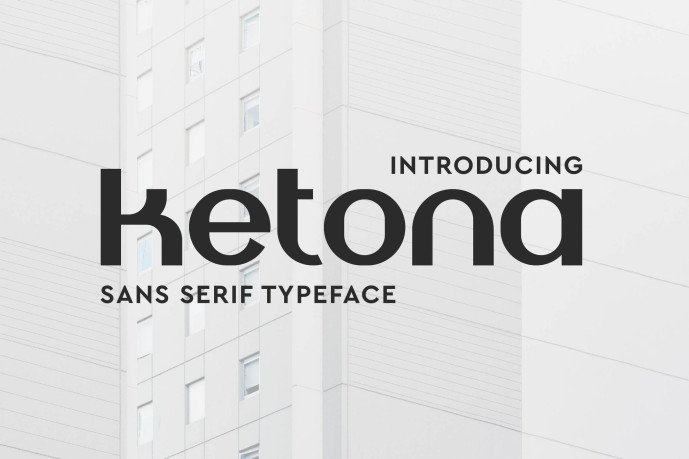
Ketona Font
Designer: Artiveko
Ketona Font – Modern Sans Serif Font. This font is perfect for posters, social media posts, branding, personal projects, etc.